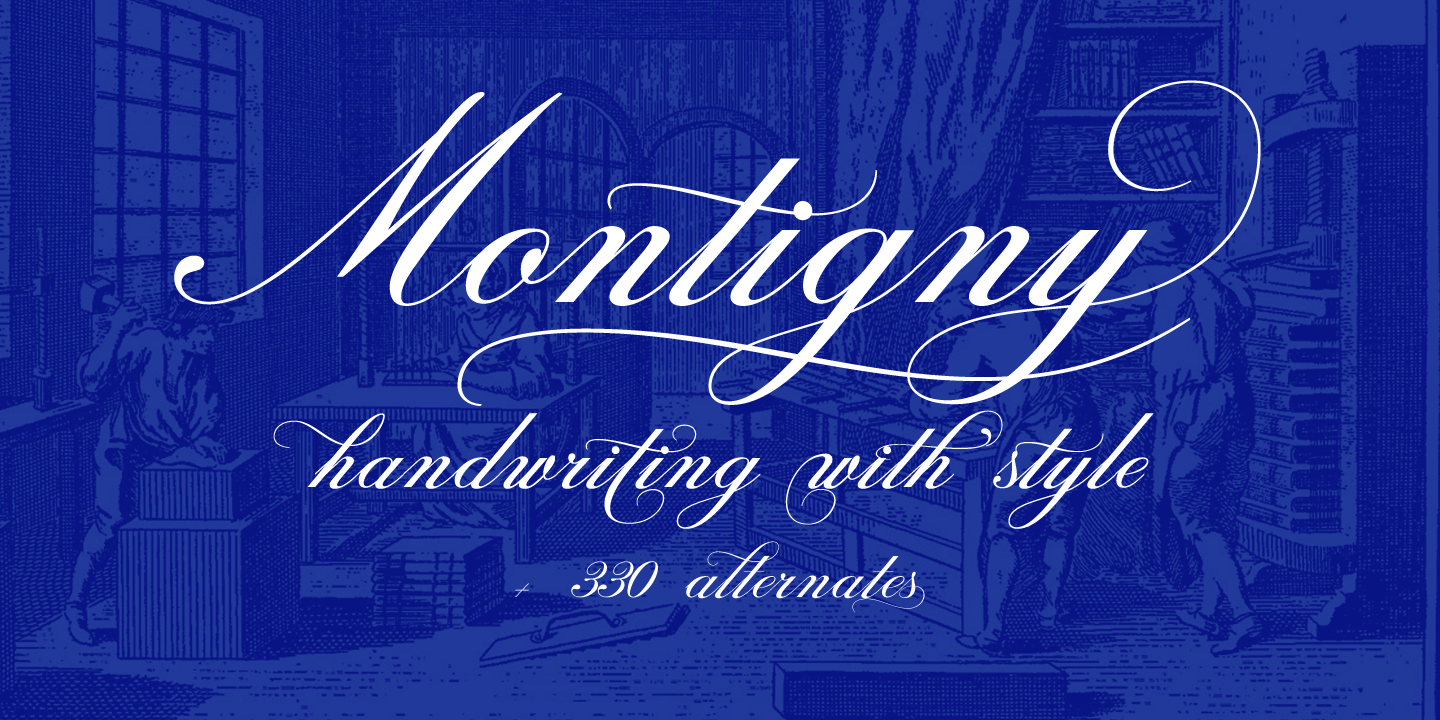
Montigny Font is perfect for French bistro branding, European luxury products, artisanal food packaging, vineyard labels, boutique hotel materials, and sophisticated culinary marketing. Its elegant character makes it ideal for fine dining establishments, French patisseries, wine estates, gourmet cheese brands, and any application requiring refined typography that conveys Parisian sophistication, culinary excellence, and European artisanal heritage.
Montigny Font is exciting because it captures the quintessential charm of French provincial elegance through gracefully crafted letterforms that evoke the romantic atmosphere of Parisian cafés and countryside châteaux. Its refined proportions and sophisticated details reflect the timeless artistry of French typography traditions, making it perfect for brands seeking to convey authentic European luxury and culinary mastery. The font's Gallic character instantly transports audiences to the cobblestone streets and vineyard landscapes of France.
Montigny Font family includes artisanal weight variations typically featuring Light, Regular, Medium, and Bold options with flowing italic styles that honor French calligraphic traditions. The family often incorporates European accents, French typographic ornaments, and extended character sets designed for international gourmet applications, providing designers with comprehensive tools for creating authentic, Continental European typographic experiences.
When selecting European luxury typography solutions, Montigny Font Free Download represents an exceptional choice for sophisticated culinary projects. This distinguished typeface brings instant French authenticity to any design, making it invaluable for gourmet food brands, luxury hospitality businesses, and culinary establishments seeking European credibility. Whether you're developing vineyard branding, creating artisanal product packaging, or designing fine dining marketing materials, Montigny Font provides the Parisian elegance and culinary sophistication essential for capturing the essence of French gastronomy in today's premium food and beverage marketplace.